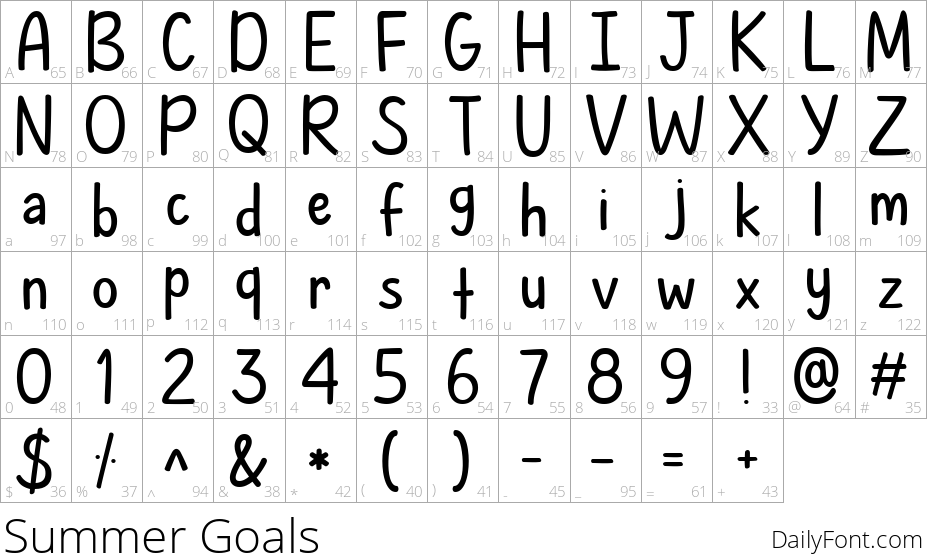
Summer Goals
Summer Goals is a charming and simple handwritten font that captures the essence of sunny days and carefree moments. Its light, friendly strokes bring a personal touch to every design, making it ideal for invitations, greeting cards, and social media graphics. Whether you’re crafting a wedding note, a weekend sale post, or a playful branding line, this font adds warmth and personality with effortless charm. Use Summer Goals to convey approachability, creativity, and a relaxed summer vibe in your projects.
Designed for versatile digital and print use, Summer Goals features balanced letterforms and clean lines that read clearly at headings or body text. The handwritten flair remains legible in social media captions, invitations, and product labels, while layering seamlessly with sans-serif partners for bold headlines. This charming font invites experimentation with colors, textures, and layouts, helping you build cohesive brand assets, event kits, and marketing materials that feel friendly and fresh all season long.